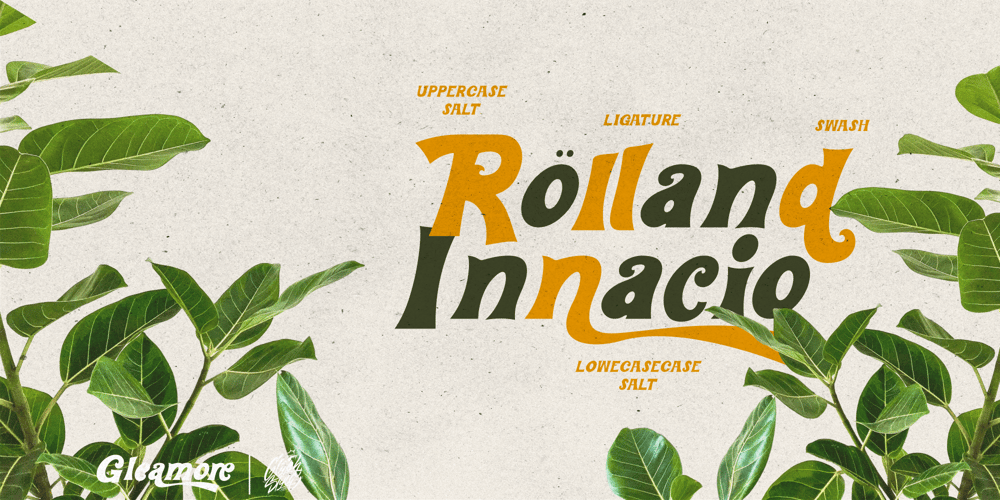
Gleamore
Gleamore font
Gleamore Font Family was designed by Dimas Ardhi and published by GlyphStyle. Gleamore contains 1 styles and family package options. Gleamore is a decorative display font, looks stylish. The bold shape combined with the unique curve shape makes this font easy to read and looks beautiful.- Font feature Uppercase, Lowercase, Numerals & Punctuations, Stylistic Alt, Swash Ligature, Multilanguage